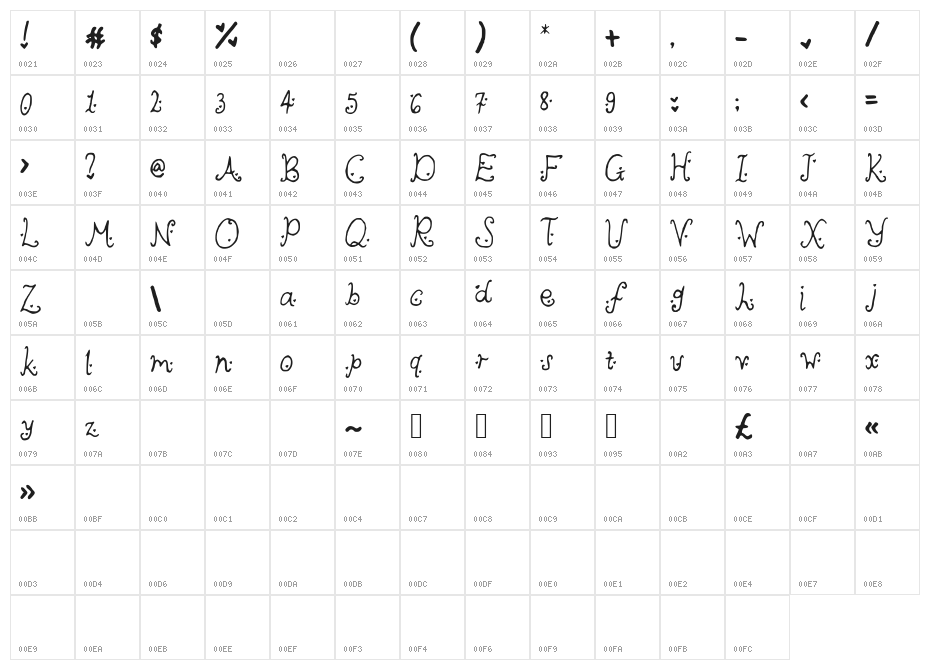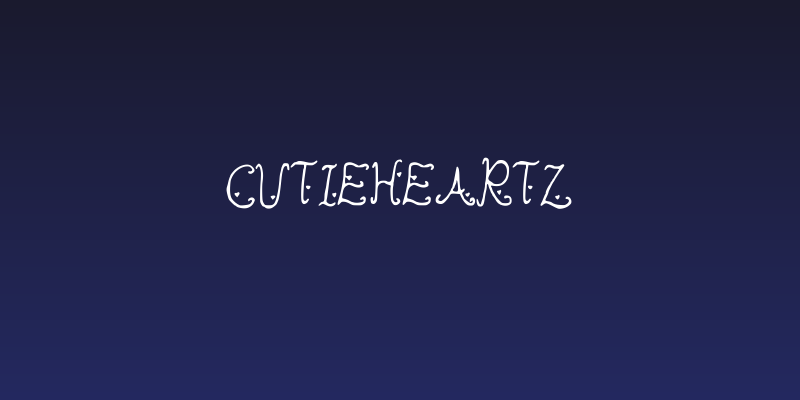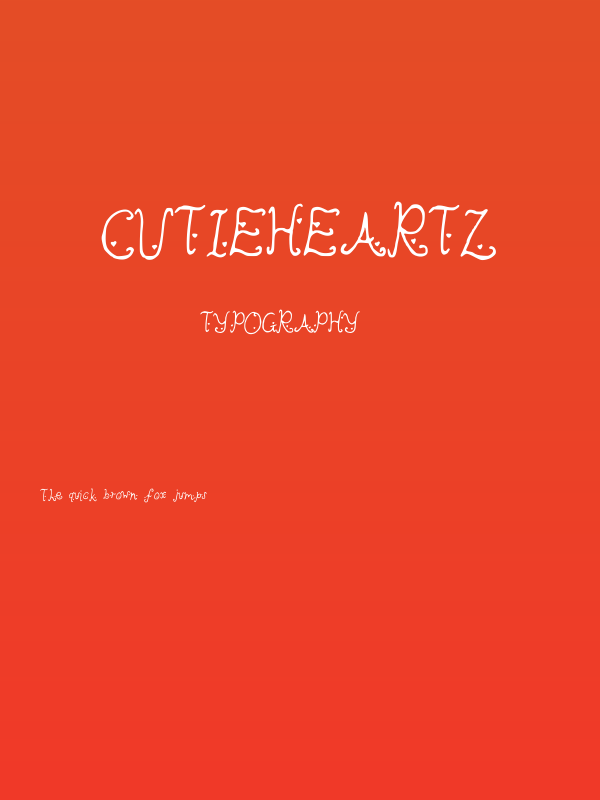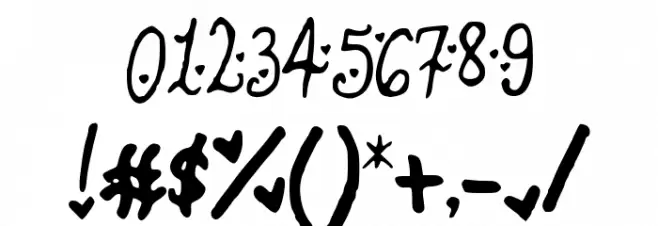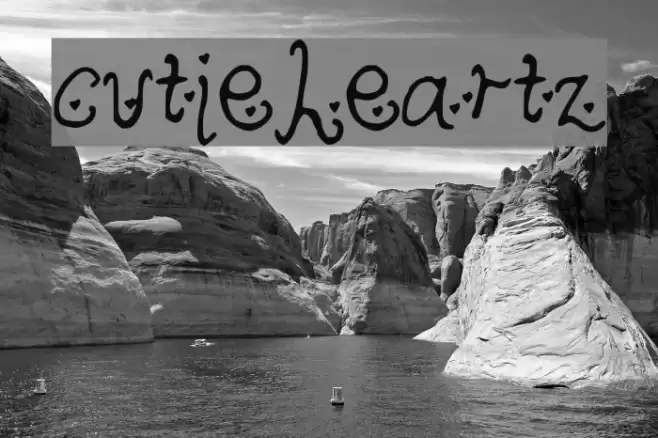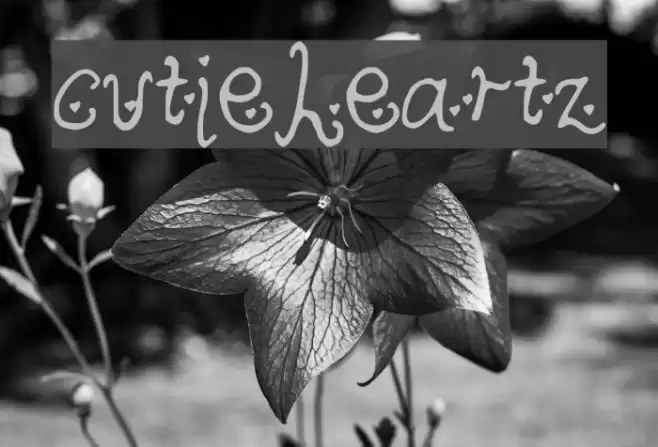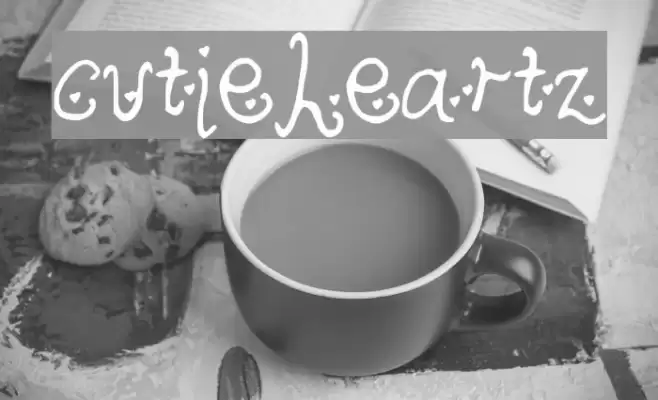
cutieheartz Font
This playful and whimsical font features a unique design where each character is adorned with heart-shaped embellishments. The letters have a hand-drawn, casual feel, with a consistent stroke width that gives it a uniform appearance. The uppercase and lowercase letters maintain a cohesive style, while the numerals and special characters are crafted to match the overall theme. The font's decorative nature makes it stand out, adding a touch of charm and creativity to any project. Its distinct style is perfect for designs that aim to convey a sense of fun and lightheartedness.
| Overall Style | Whimsical, Playful |
| Proposed Projects | Ideal for greeting cards, children's books, playful branding, and creative invitations. |